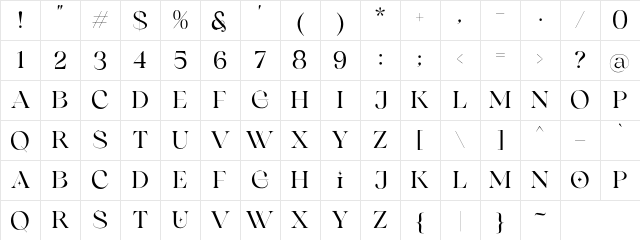
Complete Rosie Brown Serif Demo Regular glyph index. Displaying only characters natively supported by Rosie Brown Serif Demo Regular font.
Rosie Brown Serif Demo carries the refined structure of traditional serif typography, with bracketed terminals and considered proportions that communicate credibility and craft.
Pro Tip: Use Rosie Brown Serif Demo for editorial body copy and considered headline work. Pair with a neutral sans for UI elements or captions to create a classic hierarchy.